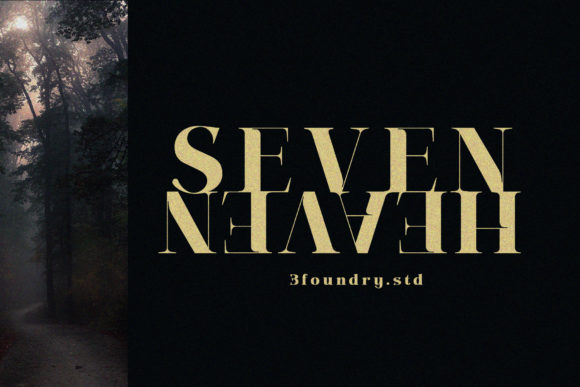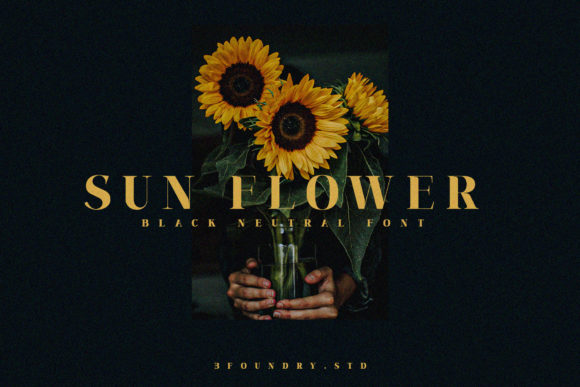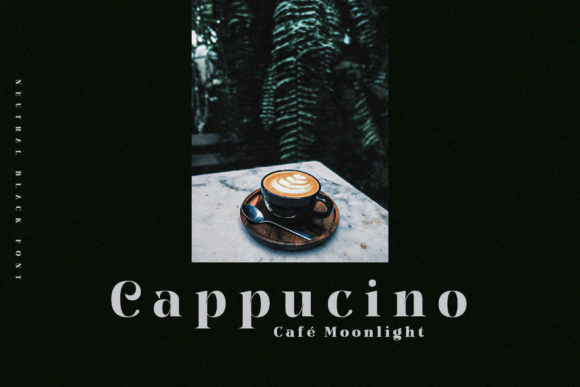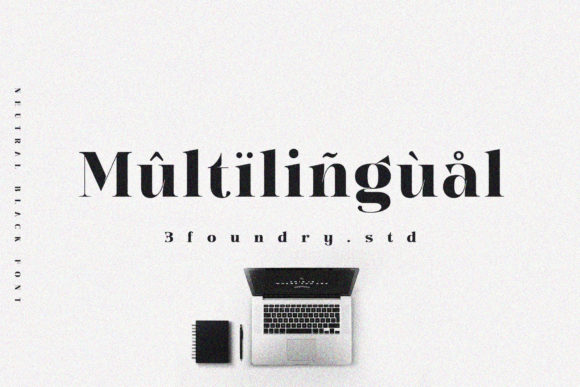
Introduction to Neutral Black Font
Neutral Black is a modern and clean serif font.
Its versatility and neat vibe will brighten up each of your designs Have fun with this beautiful font and explore its endless variations.
Key Features of Neutral Black Font